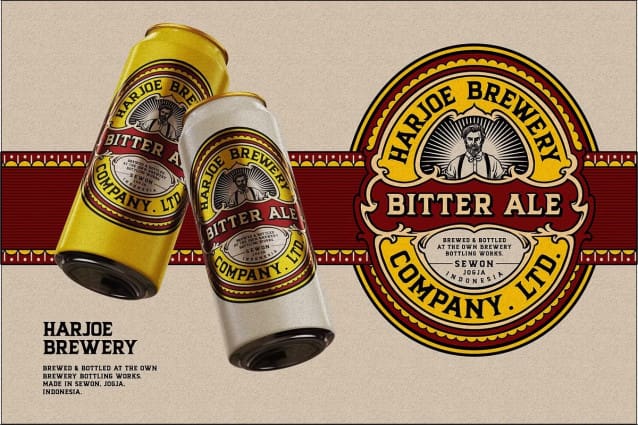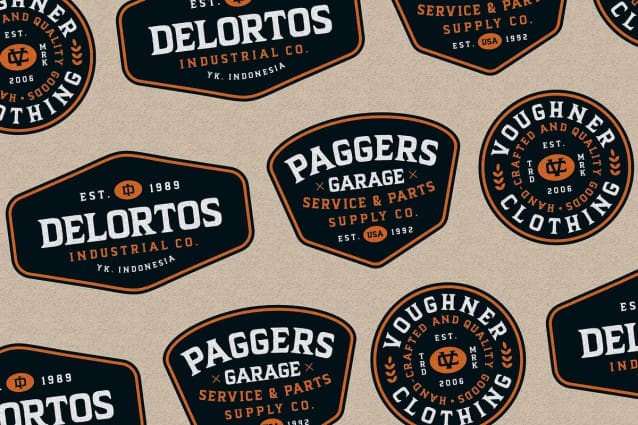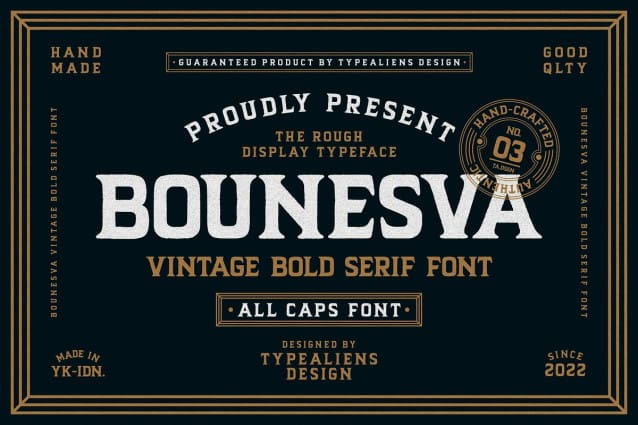
Bounesva Font
Bounesva Font is a bold, all-caps serif font, perfect for motorcycle and vintage-related designs. A fairly simple font with not much variation from the serifs of the past. With only a thick feature and the hook is a little fat. This font is also suitable for headlines or short texts not for paragraphs. In addition to vintage motorcycle designs, this font is also suitable for modern designs.